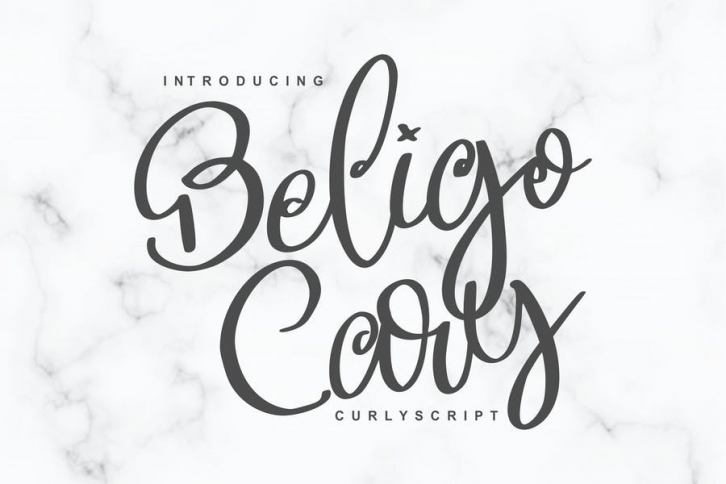
Beligo Cary | Curly Script Font Download
Beligo Cary | Curly Script Font with a calligraphy style, So beautiful on invitation like greeting cards, branding materials, business cards, quotes, posters, and more!
• Tons of glyphs
• Alternates and Ligatures
• Punctional
• Fonts include Multilingual Support